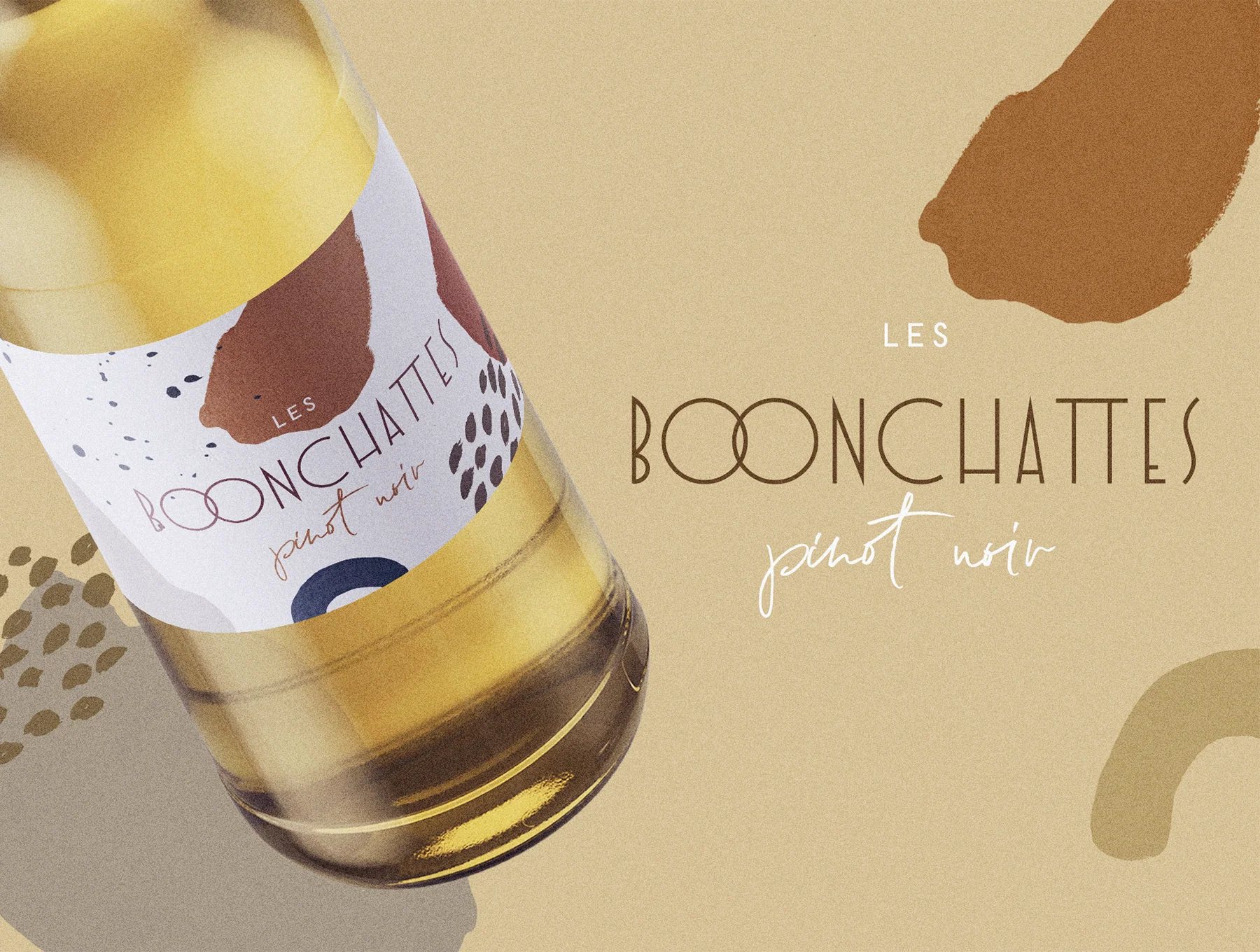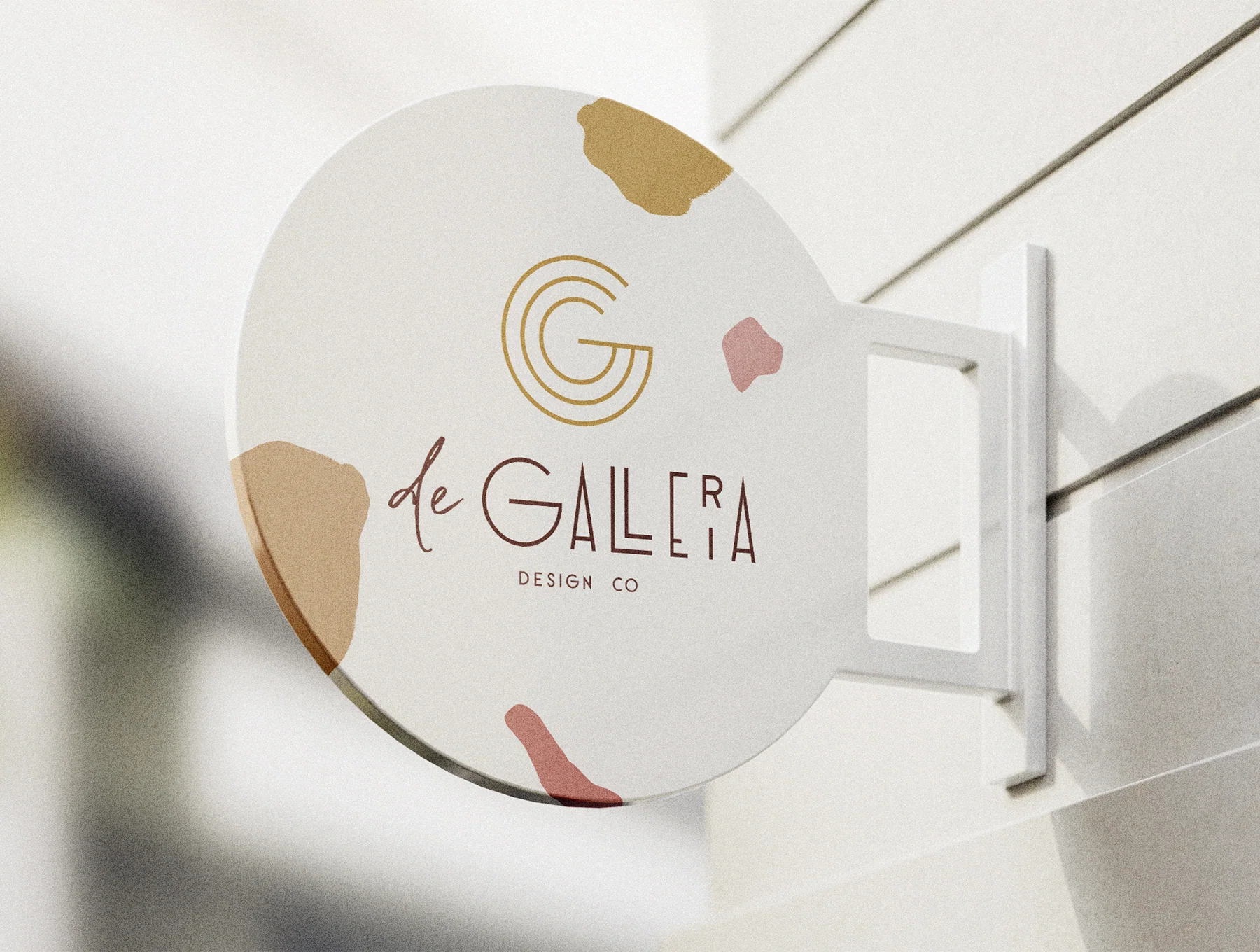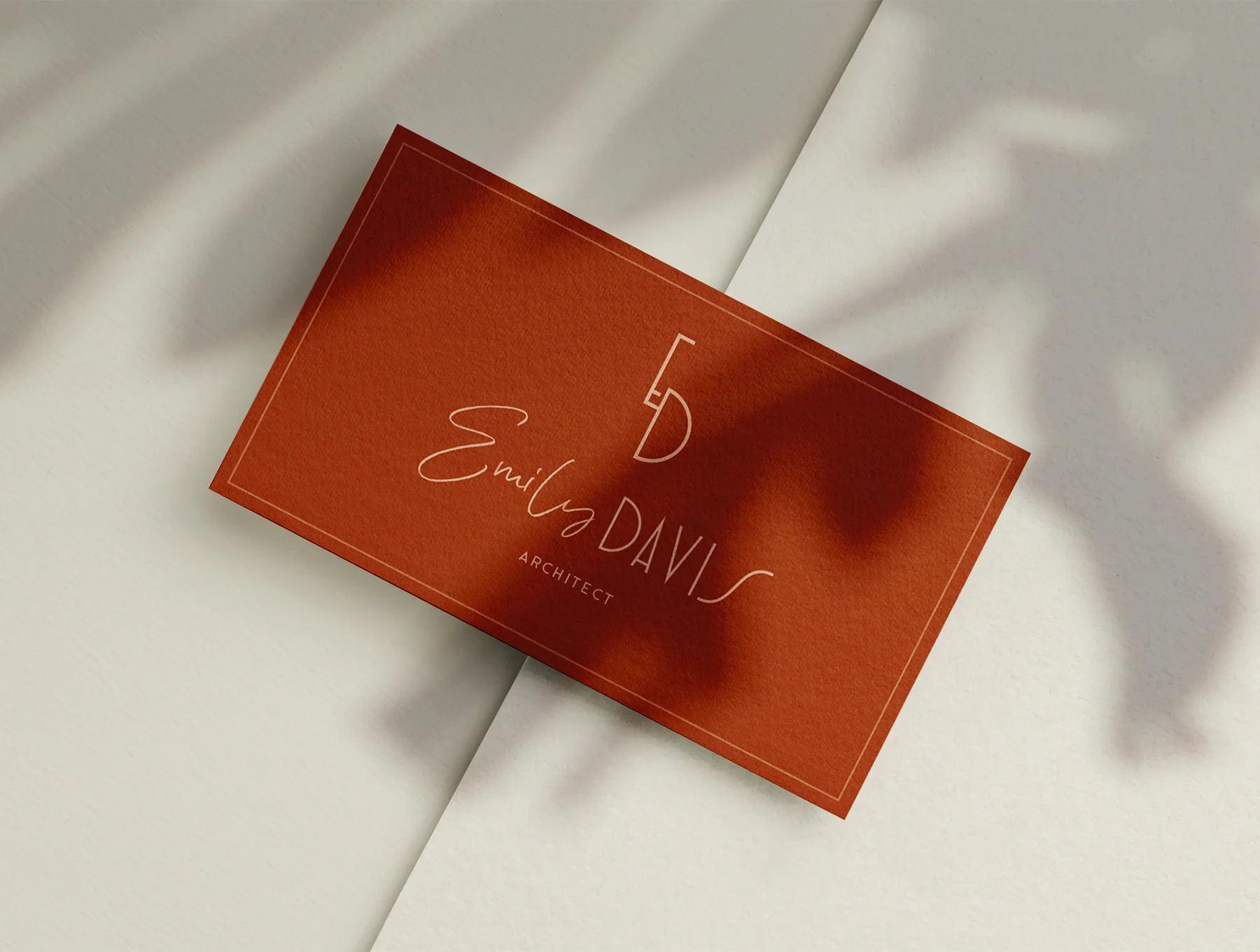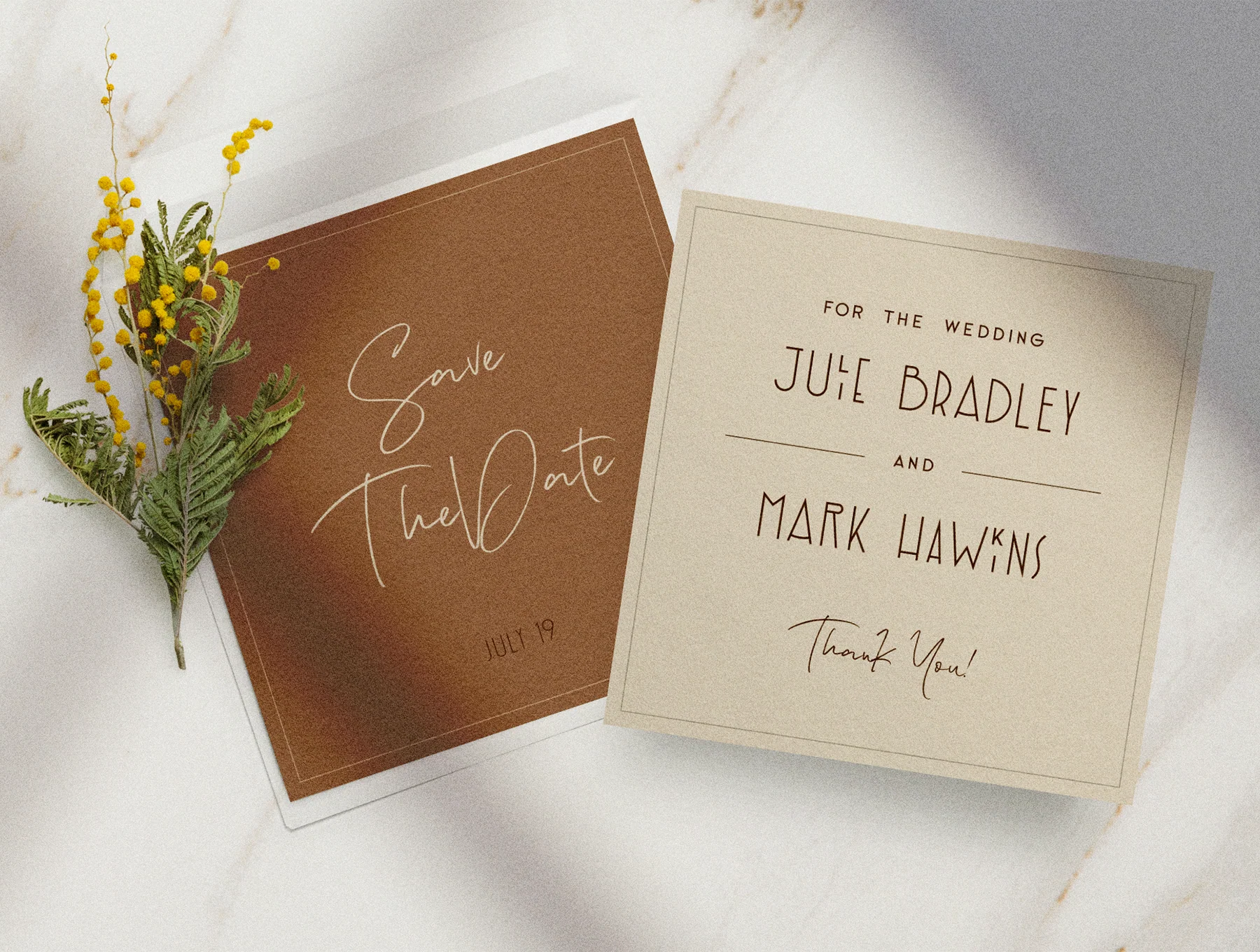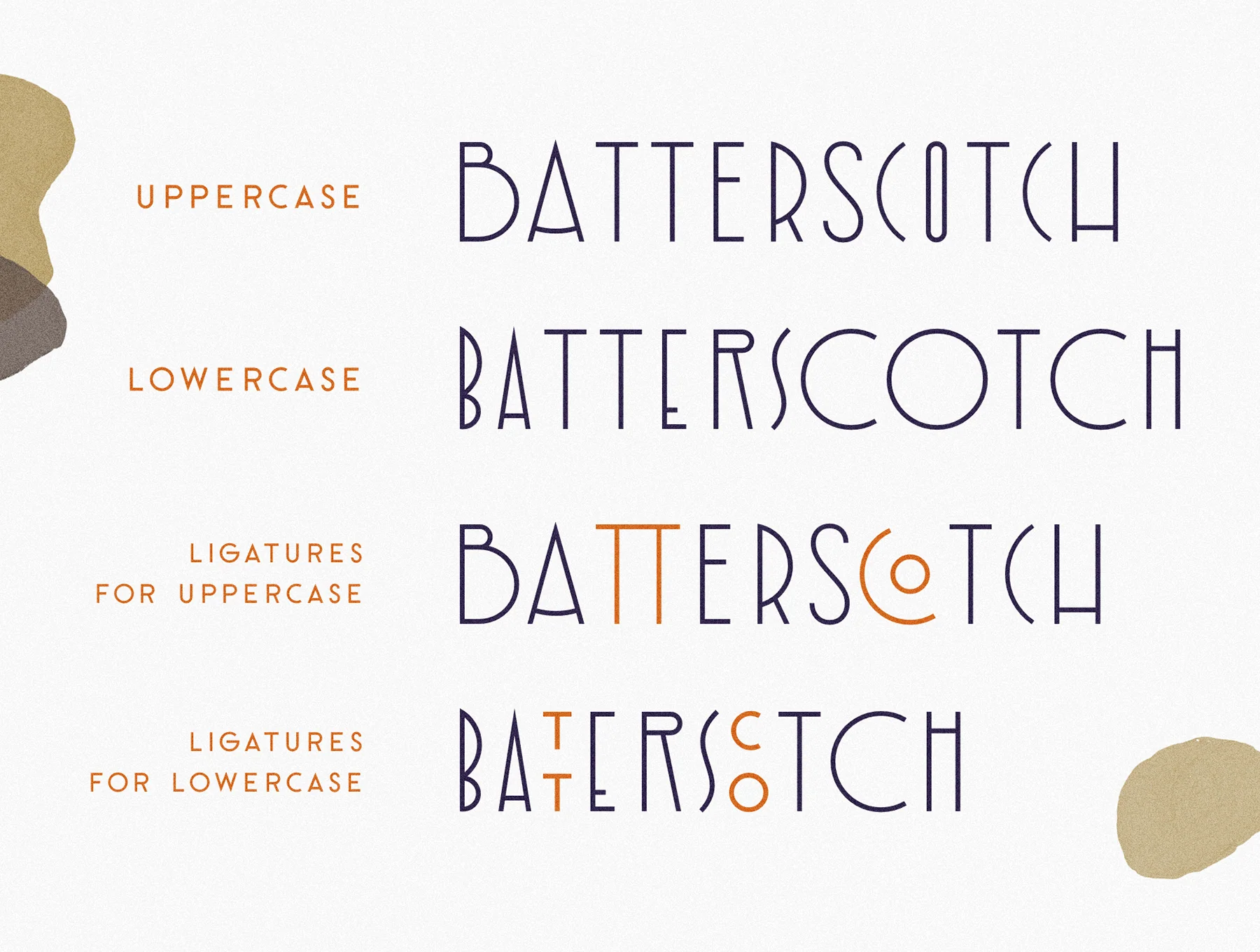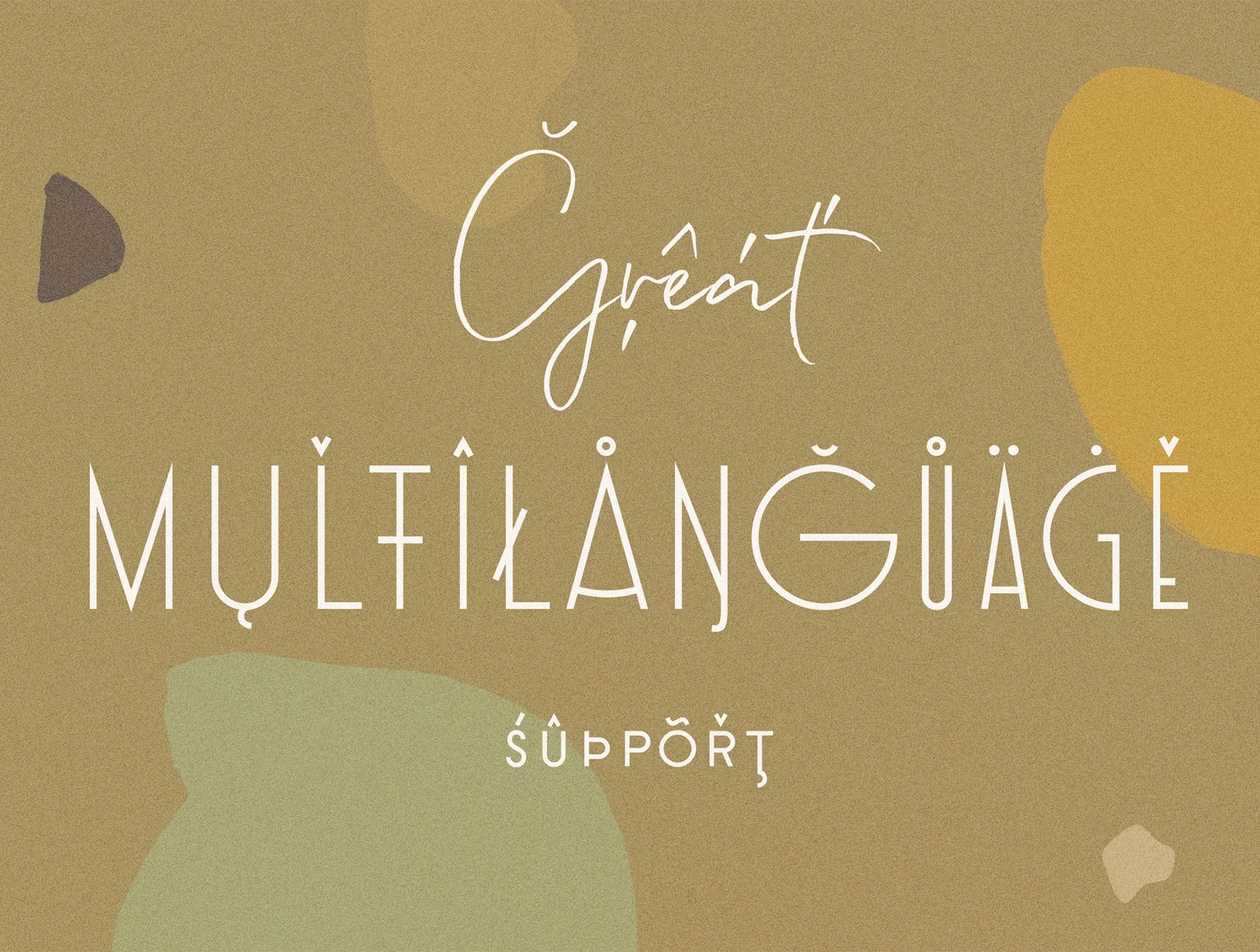
Garine Art Deco Display Fonts Trio
Garine is a character-rich display font with a modern Art Deco influence
Capital and small-letter characters
Punctuation marks
Numerals
Support for multiple languages
Meet Garine, a modern typeface trio with Art Deco flair, expressive personality, playful ligatures, and varied glyphs for standout visuals. Best for display use in magazine titles and layouts, logos, branding, invites, quotes, blog headers, posters, and ads. Supports Afrikaans, Albanian, Catalan, Danish, Dutch, English, French, German, Italian, Norwegian, Portuguese, Spanish, Swedish, and Zulu.